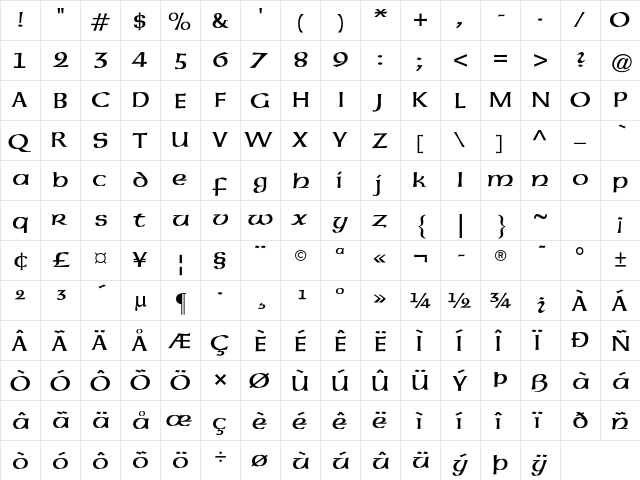
AT Uncial Std Regular
Design Context for AT Uncial Std Typeface
AT Uncial Std is a composed and adaptable typeface that performs quietly and consistently across a wide range of design contexts.